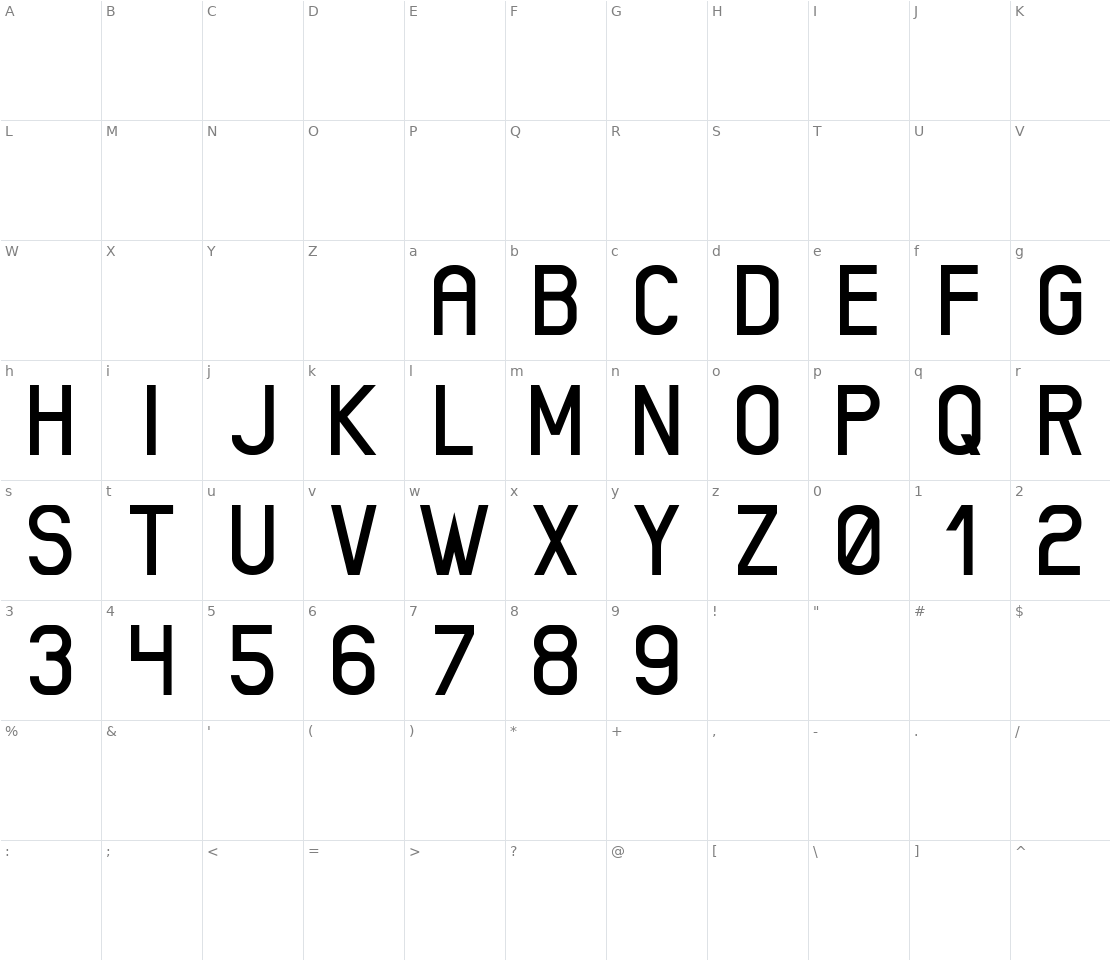
Xenik
Xenik is a condensed, bold geometric sans from Qbotype Fonts with tightly packed uppercase letterforms and a clean, modern stance. The narrow proportions and heavy weight make it hit hard in headlines, signage, and branding where you need density without clutter. It's a no-frills workhorse that relies on strong geometry and tight spacing to carry the message.